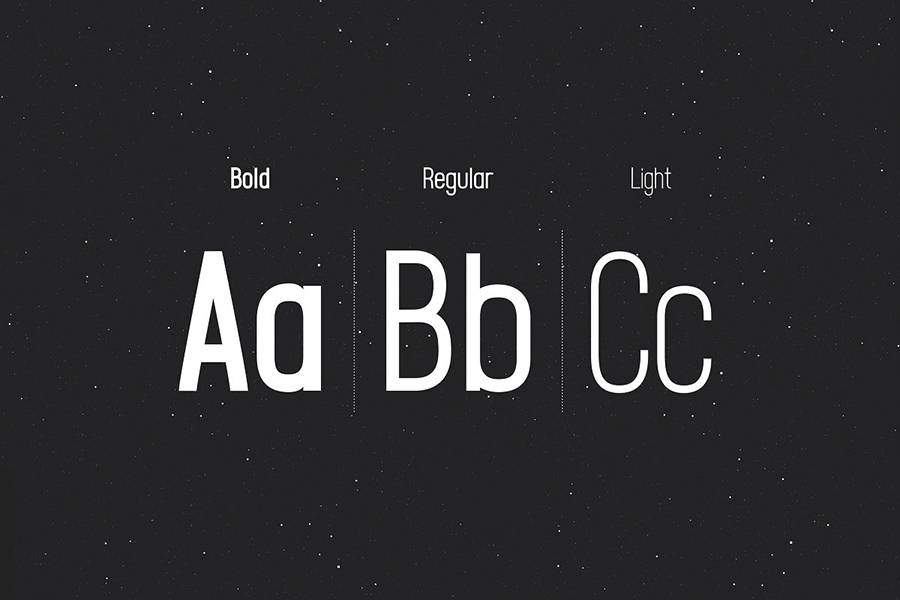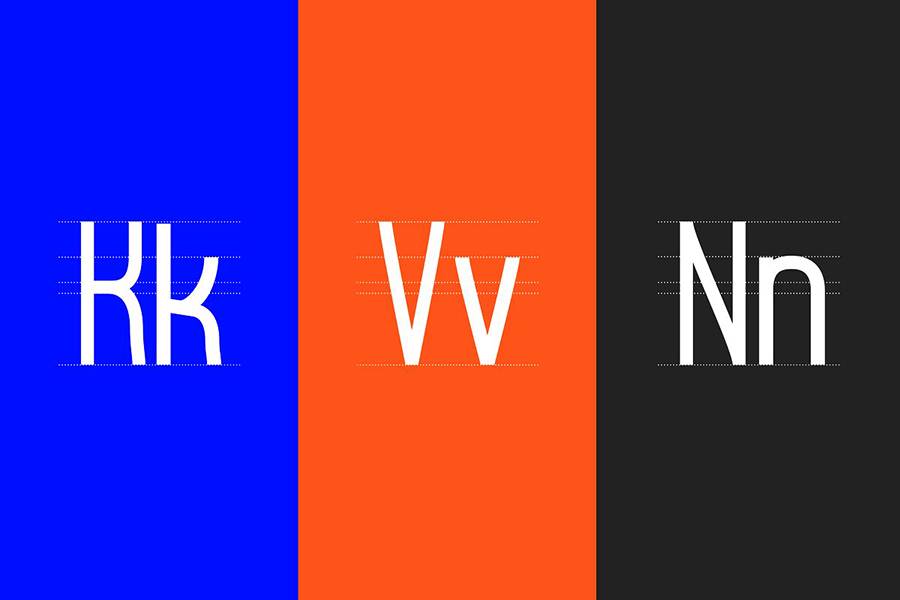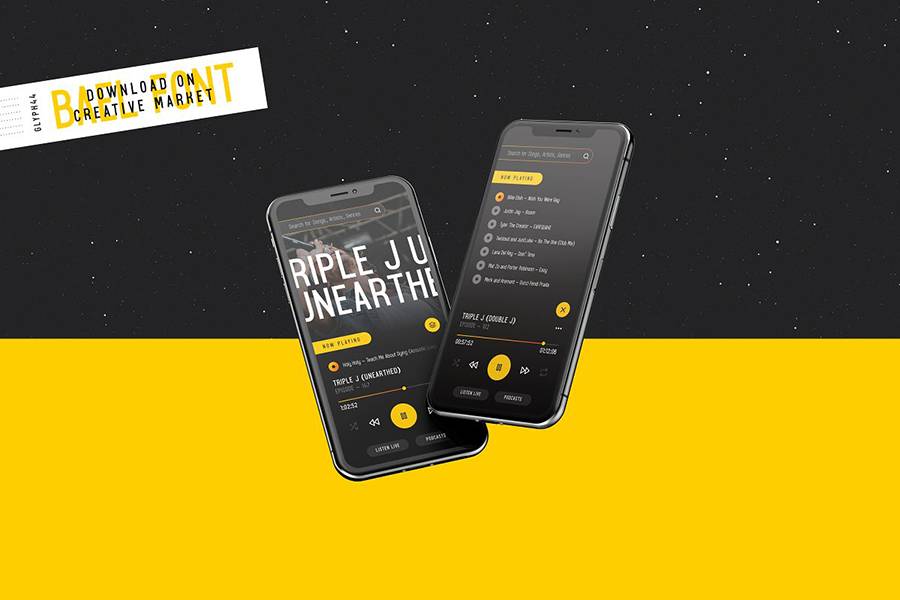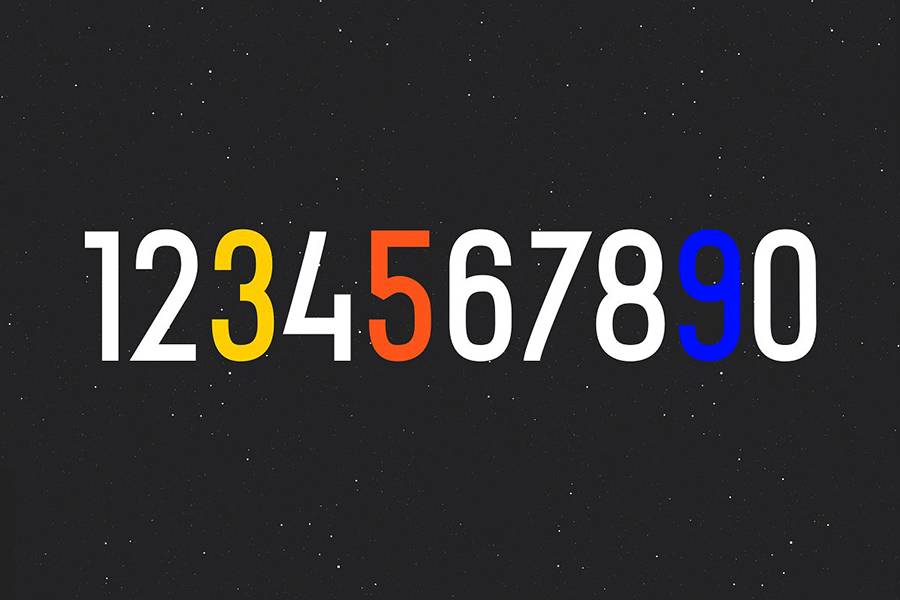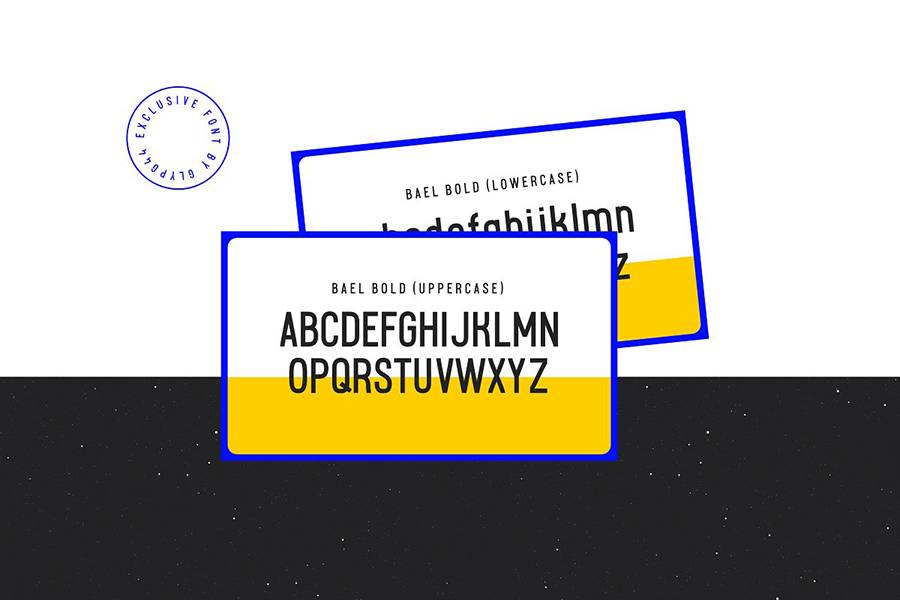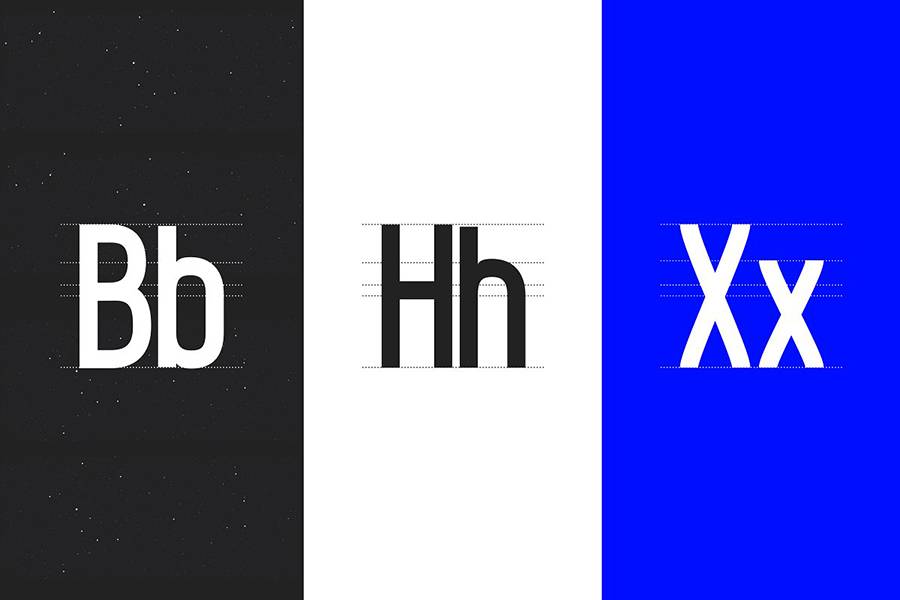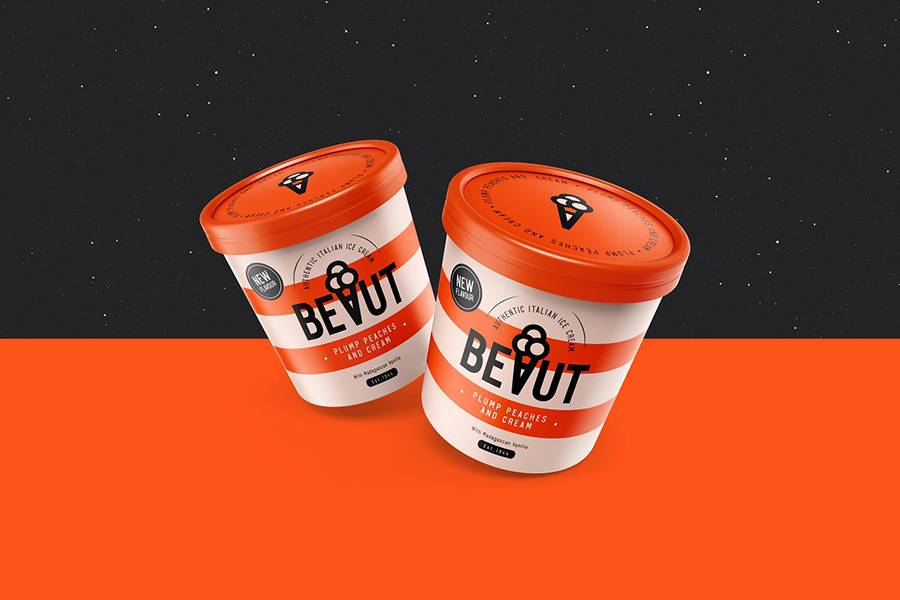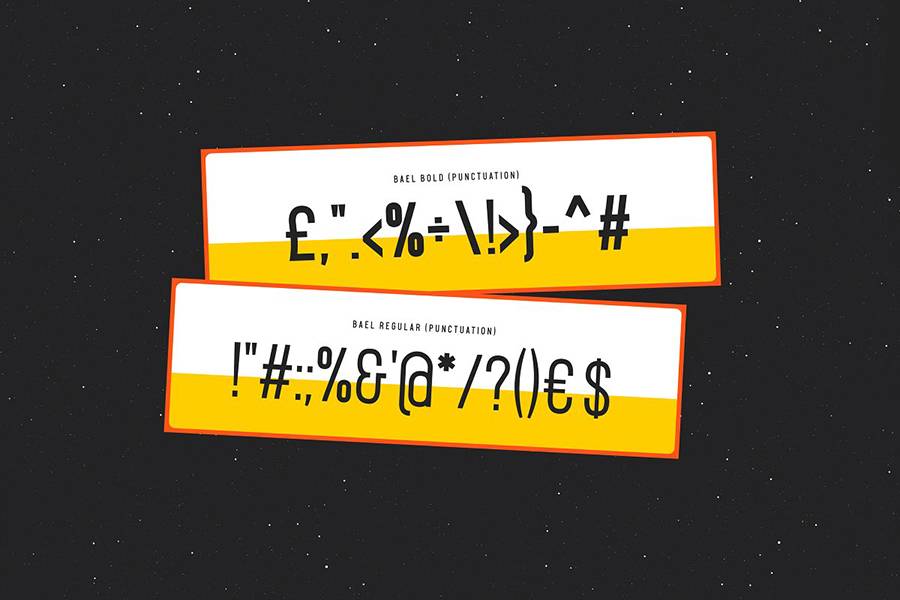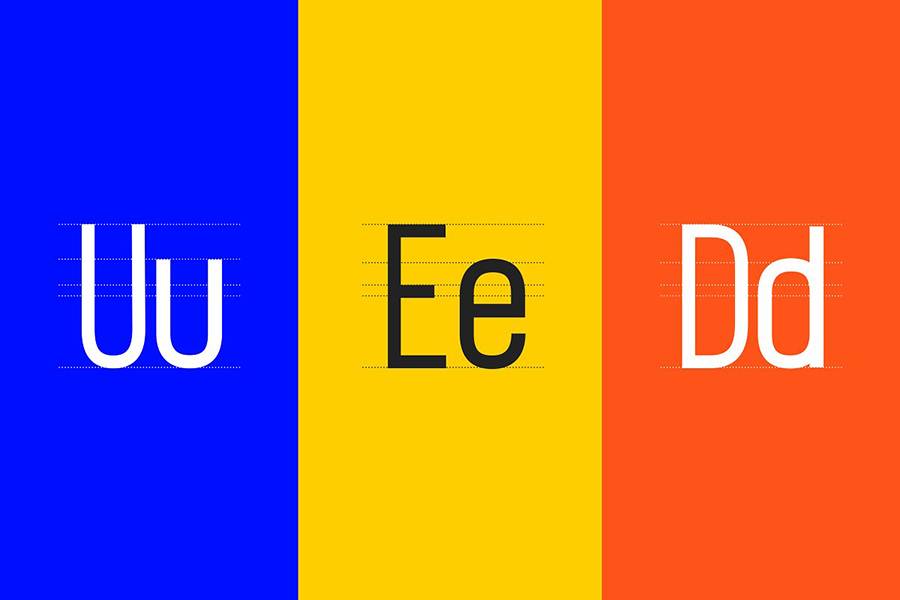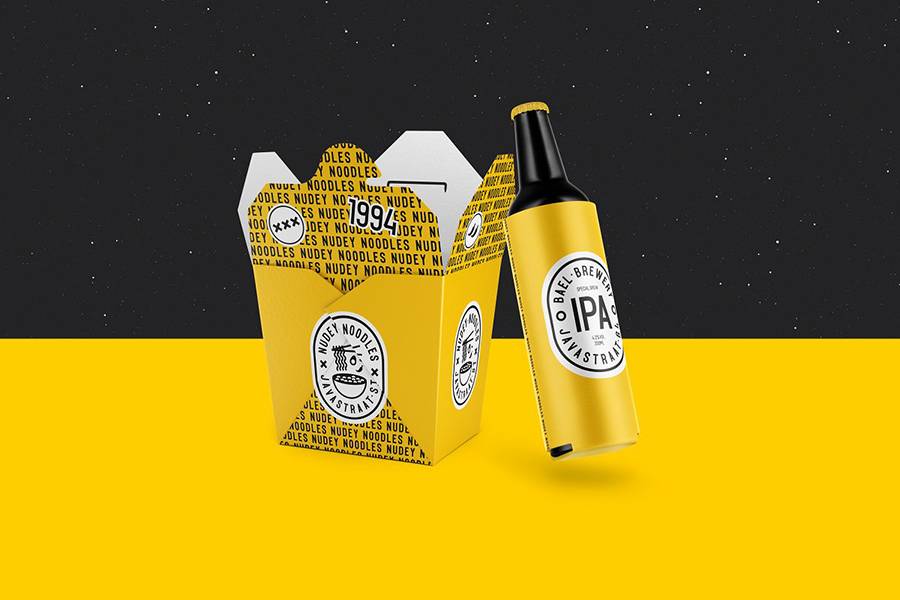
Bael Light is a sleek, modern sans-serif font with a tall, narrow structure and a light weight that gives it an elegant and minimalist feel. Its clean lines and consistent stroke widths make it highly legible while exuding a contemporary, professional vibe, perfect for fashion branding, editorial headlines, and stylish digital interfaces. This font works best in settings where a refined, understated look is desired without sacrificing clarity or sophistication.
Bael Light Sans-Serif Font
About Bael Light Sans-Serif Font